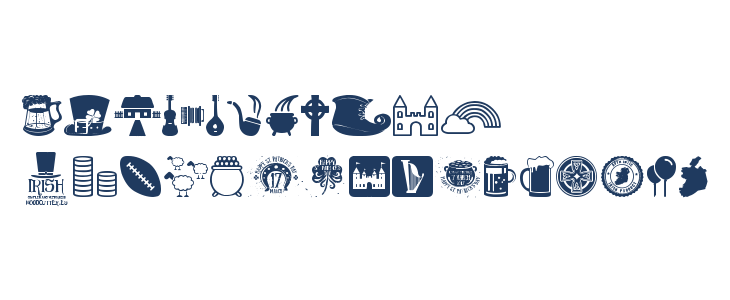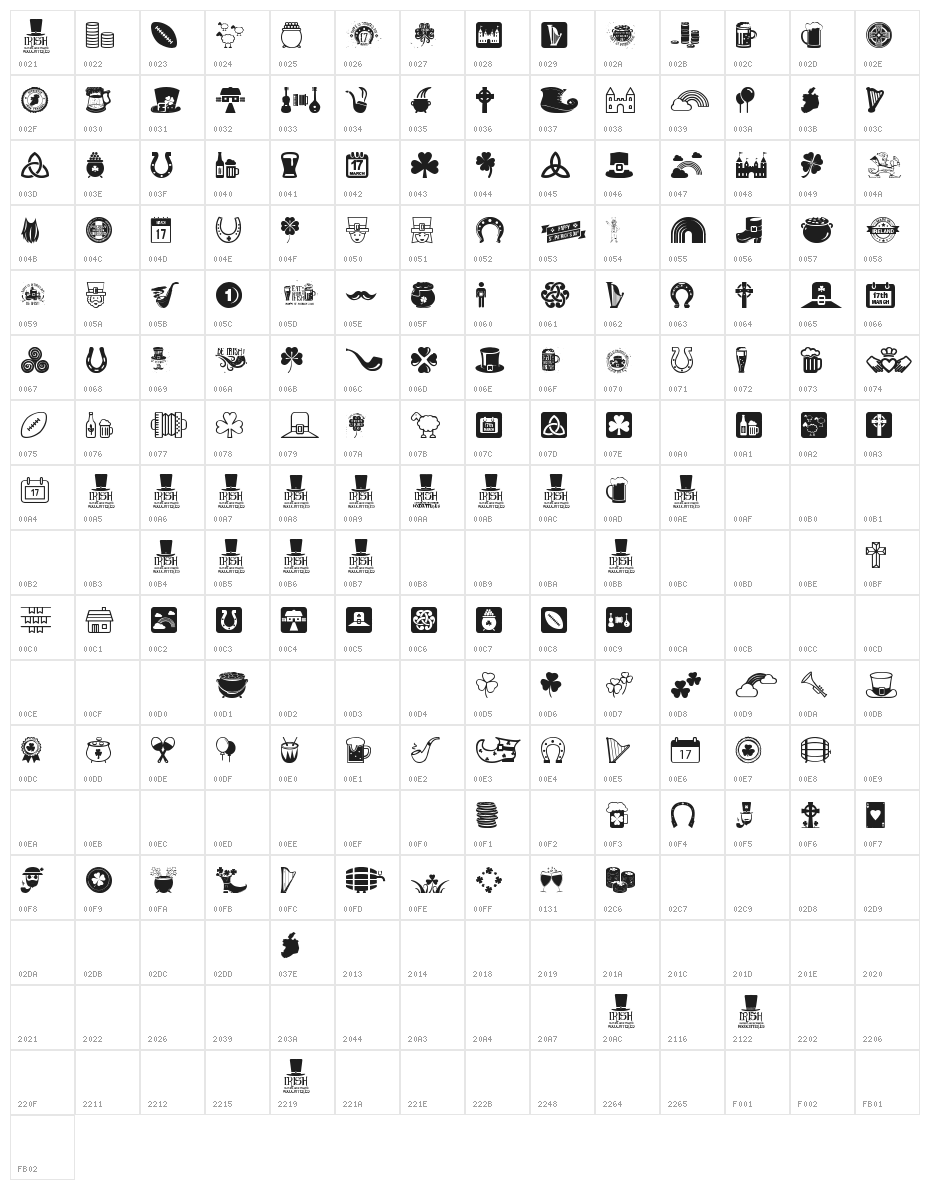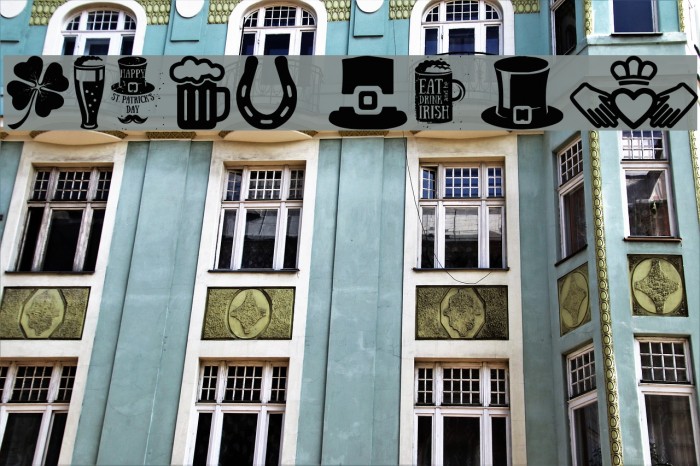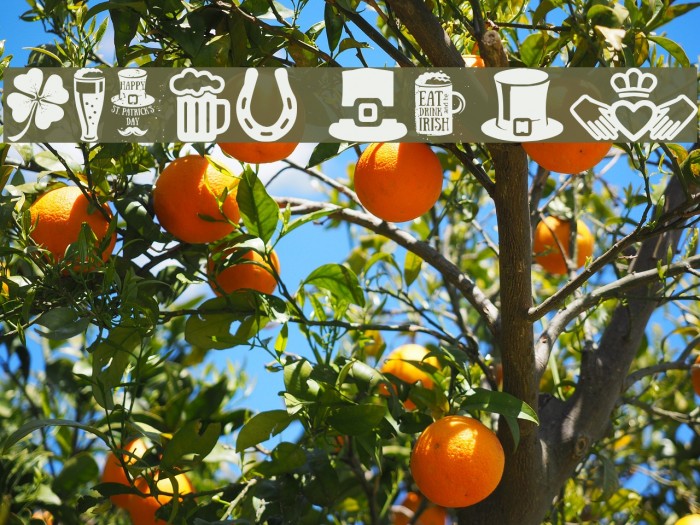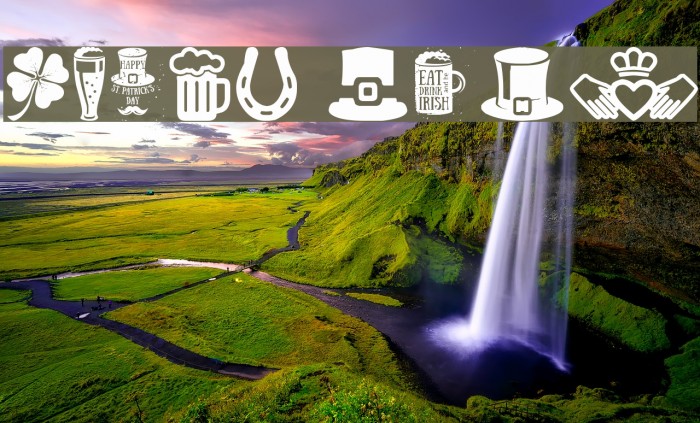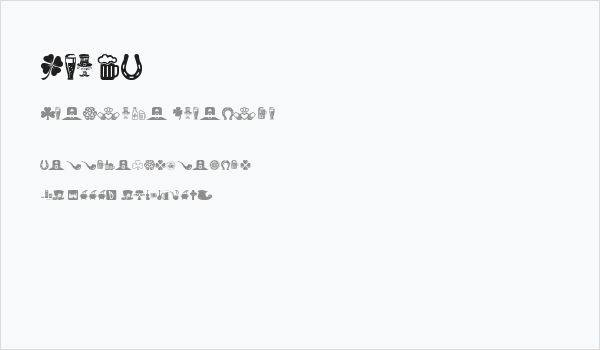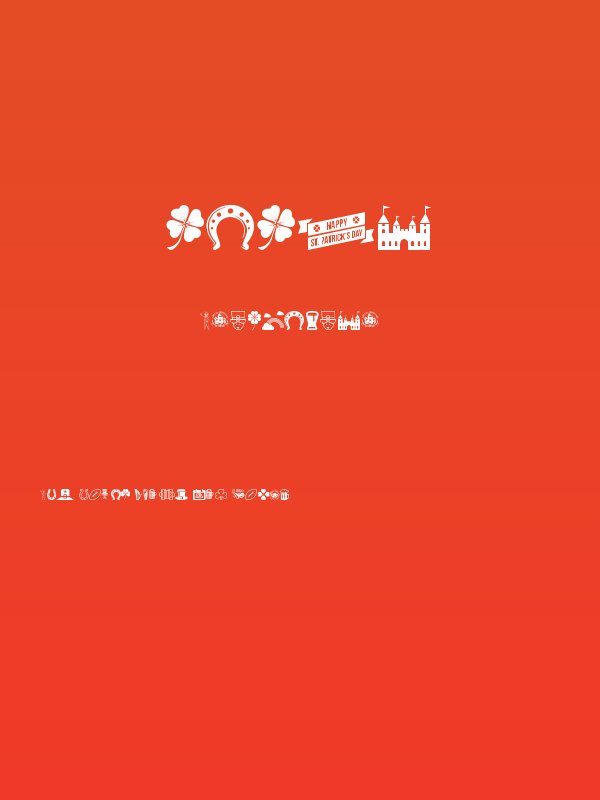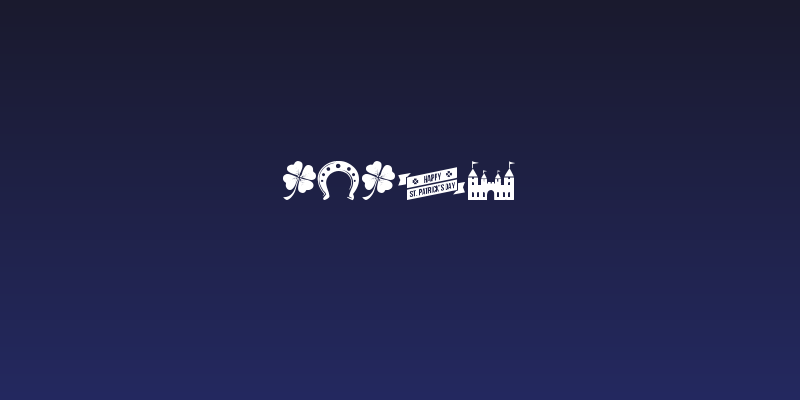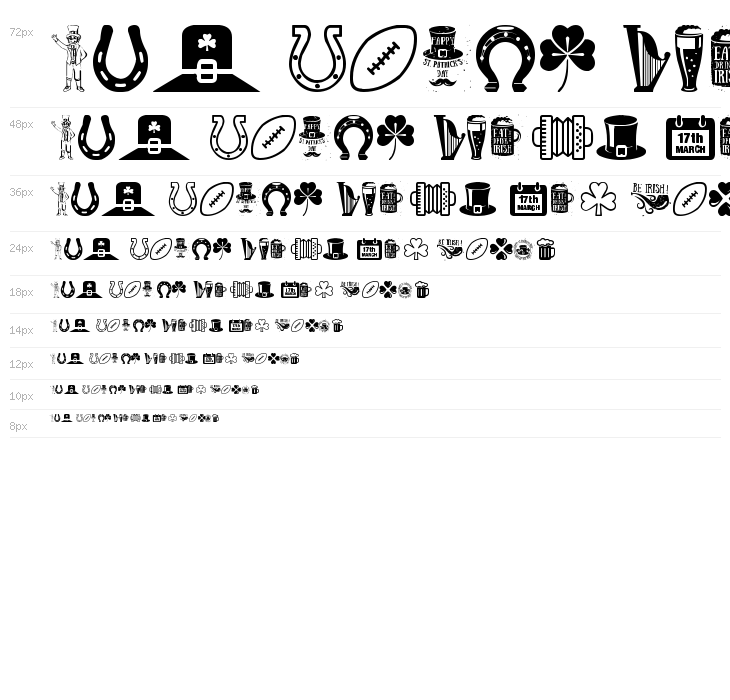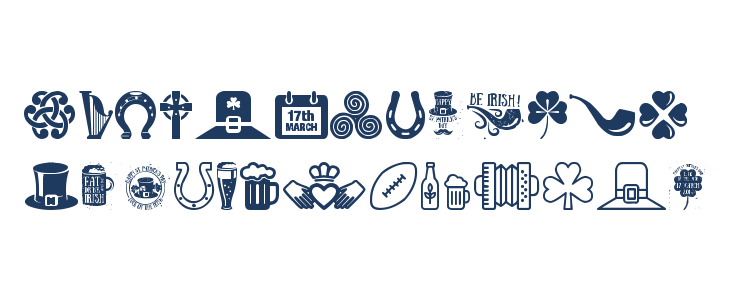
Irish Font
Irish Description
This collection of Irish-themed icons is perfect for celebrating St. Patrick's Day or showcasing Irish culture. The icons include shamrocks, leprechaun hats, Celtic knots, and other traditional symbols. Each icon is bold and distinct, making them suitable for various design projects. The style is playful and festive, capturing the essence of Irish celebrations with a modern twist. The icons are versatile and can be used in both digital and print media, adding a touch of Irish charm to any project.
| Overall Style | Festive, Playful |
| Use Case | Logos, Decorations, Invitations |
| Proposed Projects | Ideal for St. Patrick's Day event promotions, Irish-themed party invitations, cultural presentations, and festive decorations. |